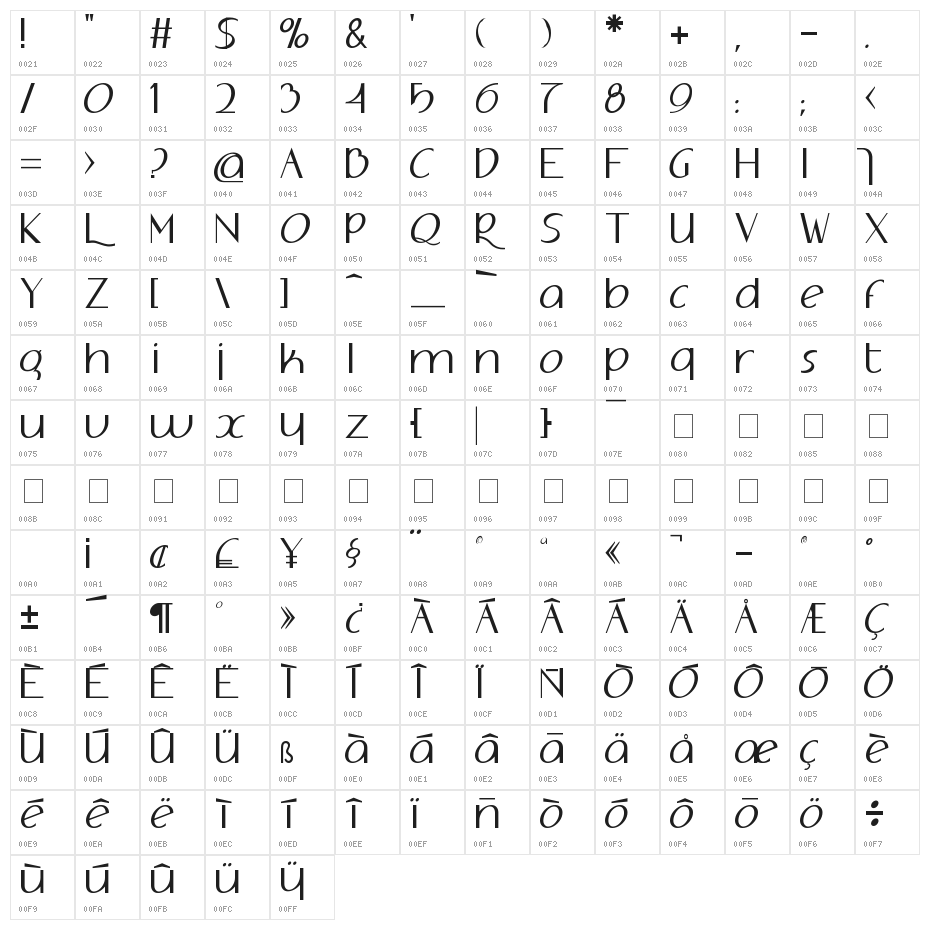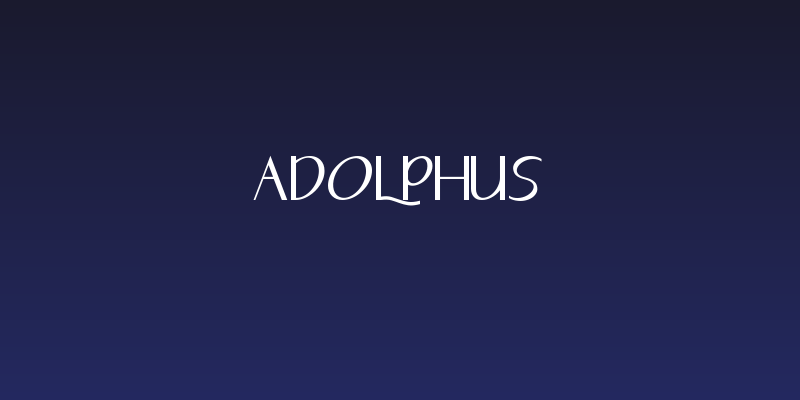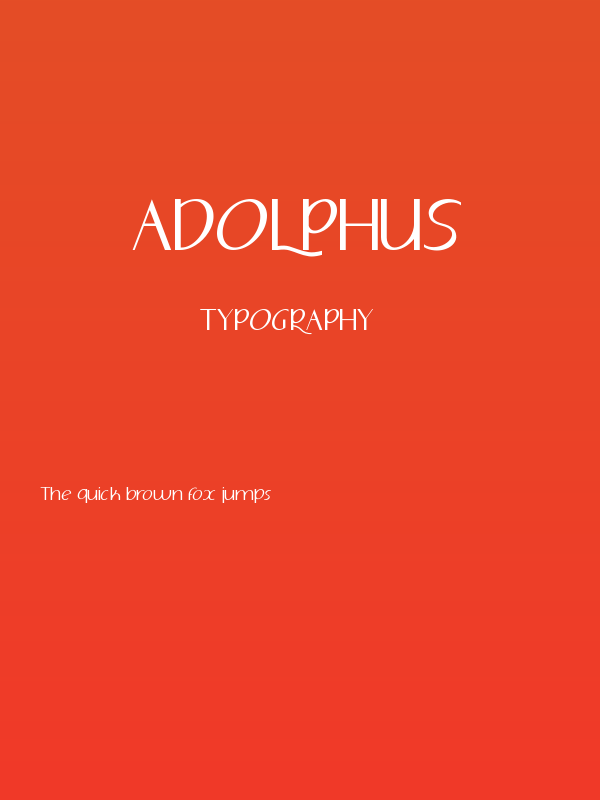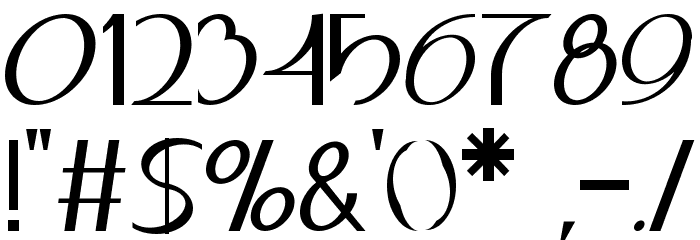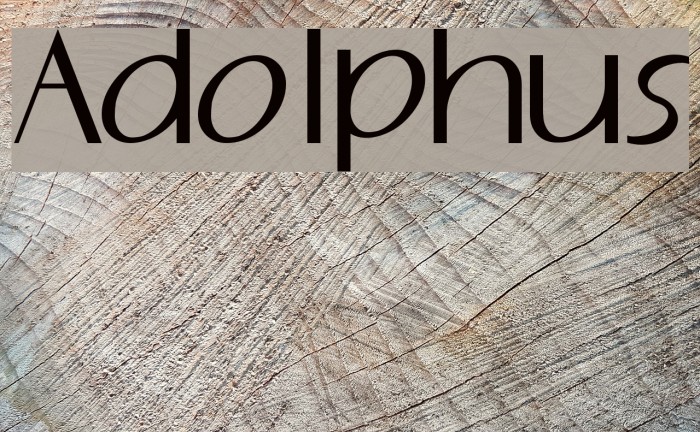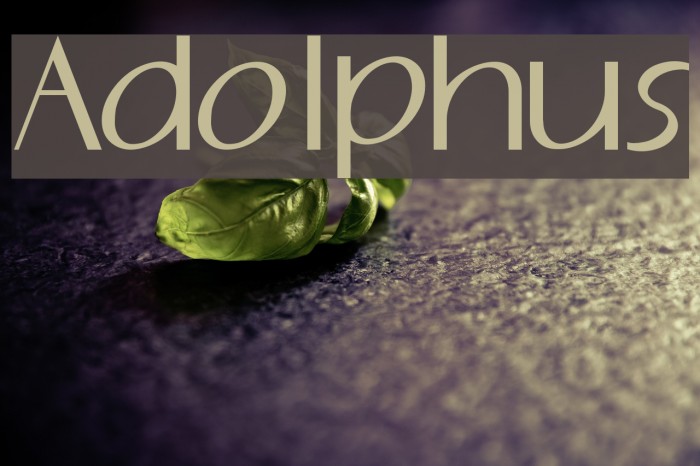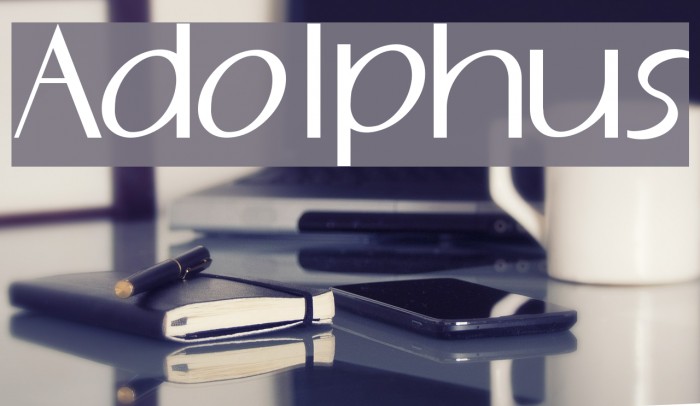
Adolphus Description
This font features a unique blend of geometric and calligraphic elements, creating a distinct and modern aesthetic. The uppercase letters are characterized by sharp angles and clean lines, while the lowercase letters incorporate subtle curves and flourishes, adding a touch of elegance. The numerals are bold and easily legible, with a consistent stroke width that enhances readability. Special characters maintain the font's overall style, ensuring a cohesive look across all text elements. The font's design is both sophisticated and versatile, making it suitable for a variety of applications.